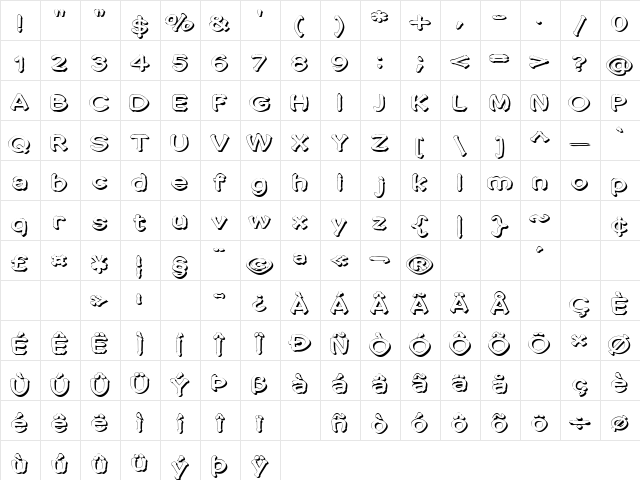
Penic Masturbata Regular
Design Context for Penic Masturbata Typeface
Penic Masturbata is a composed and adaptable typeface that performs quietly and consistently across a wide range of design contexts.
Pro Tip: Use Penic Masturbata in both headline and body roles to test its range before committing to a single application.